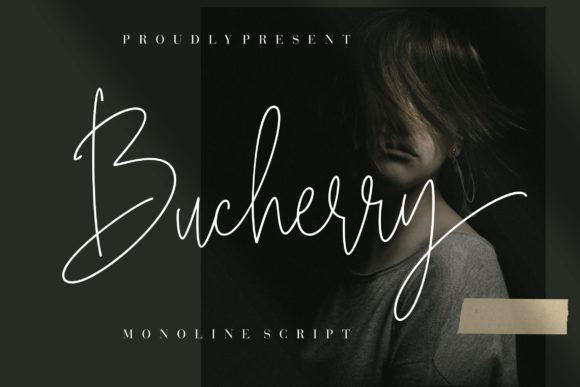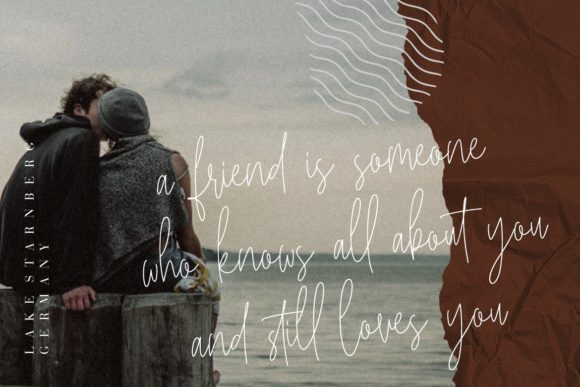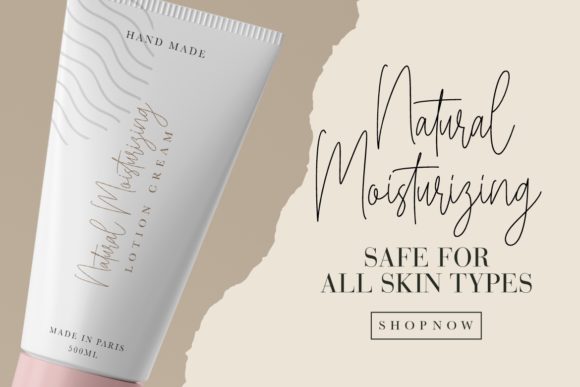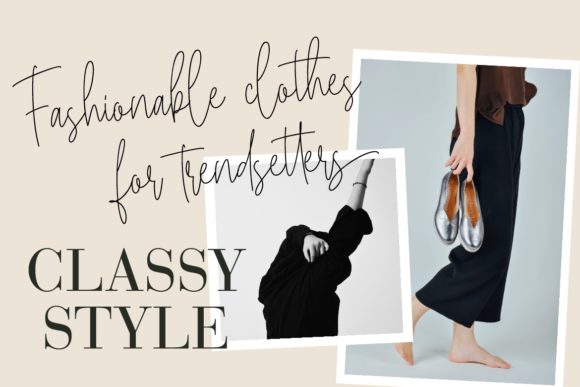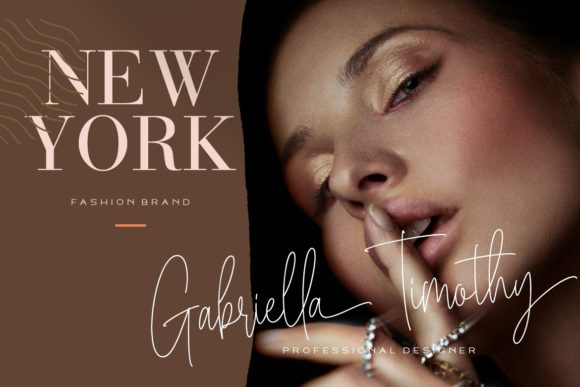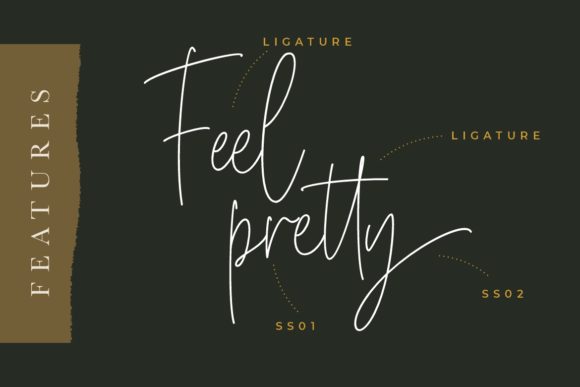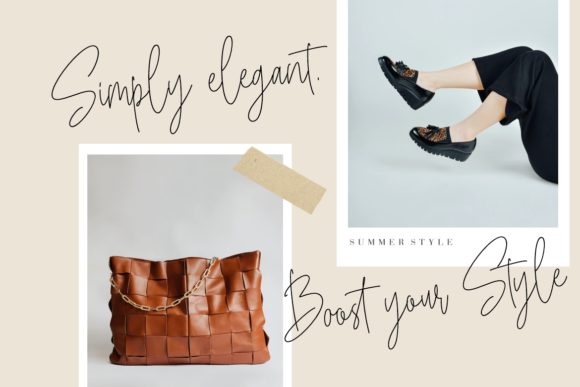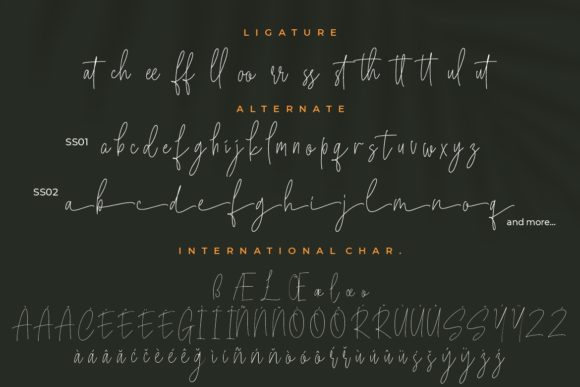
Bucherry Font
About Bucherry Font
Bucherry is a stylish and delicate handwritten font that exudes elegance and sophistication. With its clean, thin, and smooth vibe, this font is perfect for adding a touch of refinement to any design project.
The sleek and slender letterforms of Bucherry create a modern and sophisticated look. The clean lines and smooth curves give the font a sleek and polished appearance, making it ideal for a wide range of design applications. Whether you’re working on branding materials, packaging, invitations, or any other creative project, Bucherry will elevate your designs with its refined and stylish aesthetic.
The thin and delicate strokes of Bucherry contribute to its overall elegance. The font exudes a sense of lightness and grace, making it visually appealing and easy on the eyes. The slender letterforms create an airy and sophisticated feel, allowing the text to effortlessly blend into the design while still making a statement.
Bucherry’s versatility allows it to shine in various design contexts. It can be used for logos, headlines, titles, invitations, posters, and more. Its clean and minimalist appearance makes it a versatile choice that can be adapted to different styles and themes. Whether you’re going for a modern, minimalist look or a more elegant and sophisticated design, Bucherry will complement your vision.
Furthermore, Bucherry’s delicate and refined style makes it suitable for both print and digital media. Its clean and smooth lines ensure readability at various sizes and resolutions, making it a practical choice for both small and large-scale projects.
In summary, Bucherry is a stylish and delicate handwritten font that adds a touch of refinement and elegance to your designs. Its clean, thin, and smooth vibe makes it a versatile choice for a wide range of design projects. Whether you’re creating branding materials, invitations, posters, or any other creative work, Bucherry will bring a sense of sophistication and style to your designs.